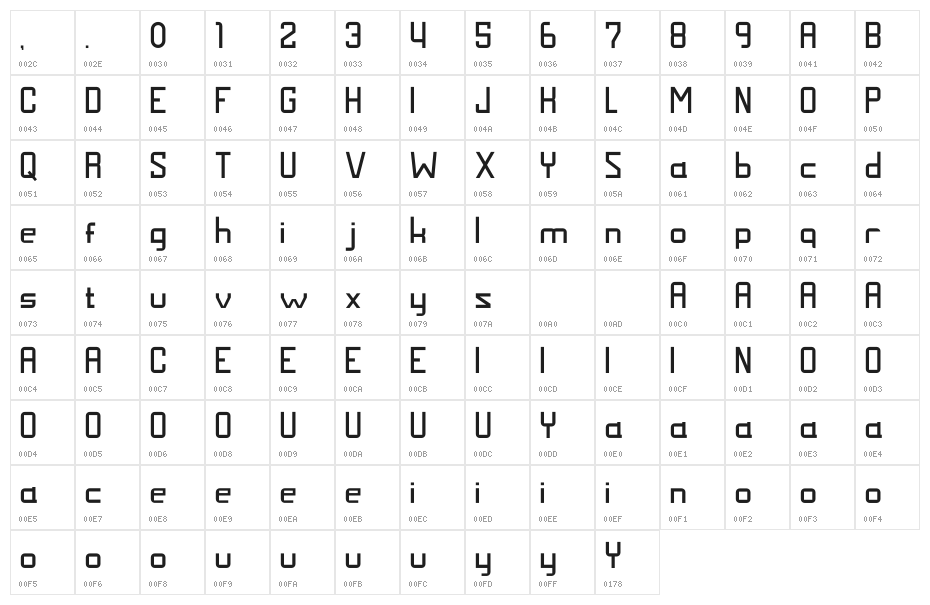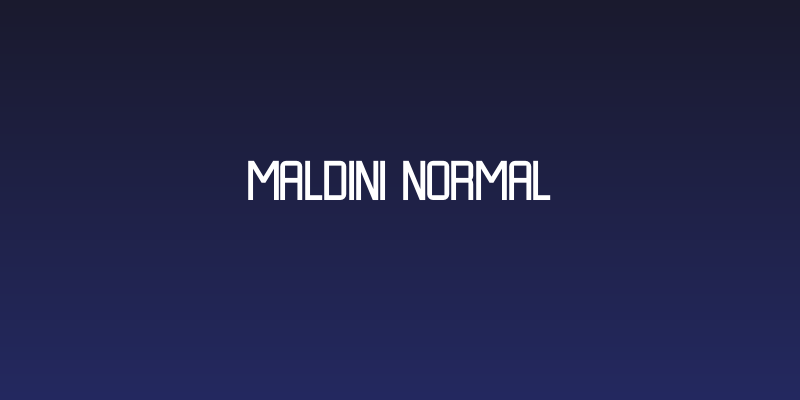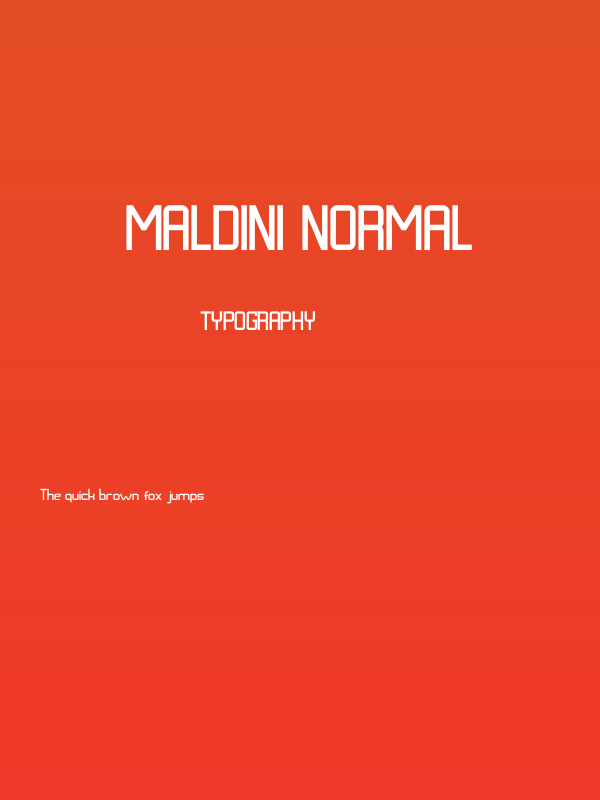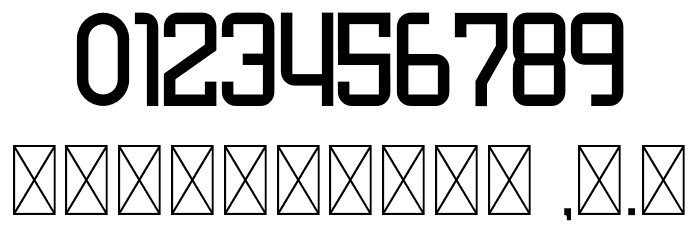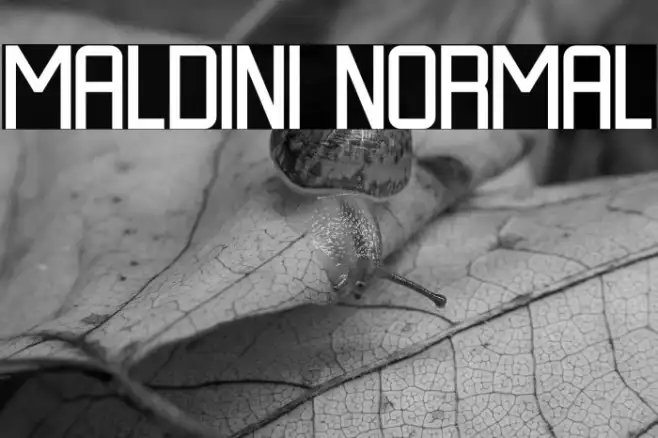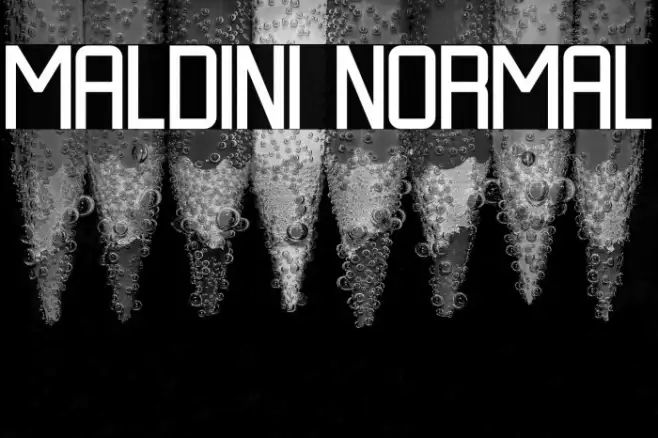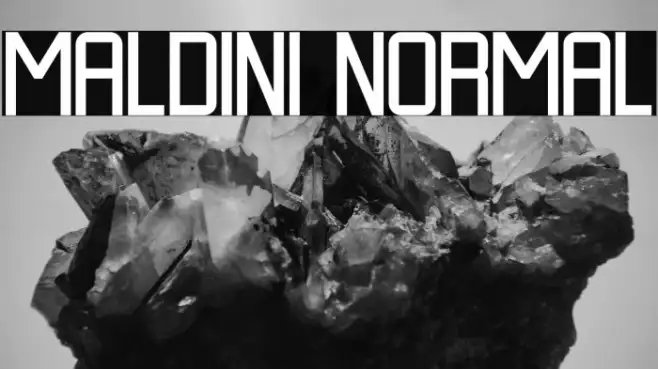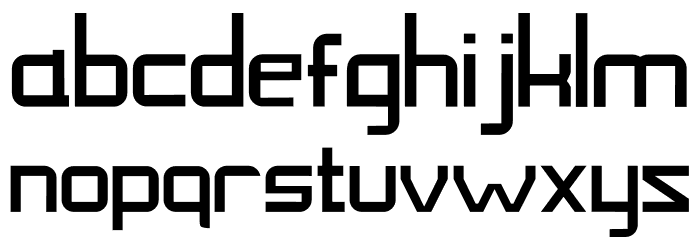
MALDINI NORMAL Font
MALDINI NORMAL Description
This font features a geometric and modern design with a strong, structured appearance. The uppercase letters are bold and angular, with a consistent height and width that gives them a uniform look. The lowercase letters maintain a similar geometric style, with clean lines and sharp angles. The numerals are equally structured, providing a cohesive look across all characters. The overall design is sleek and contemporary, making it suitable for various modern applications. The characters are evenly spaced, contributing to a balanced and harmonious appearance.